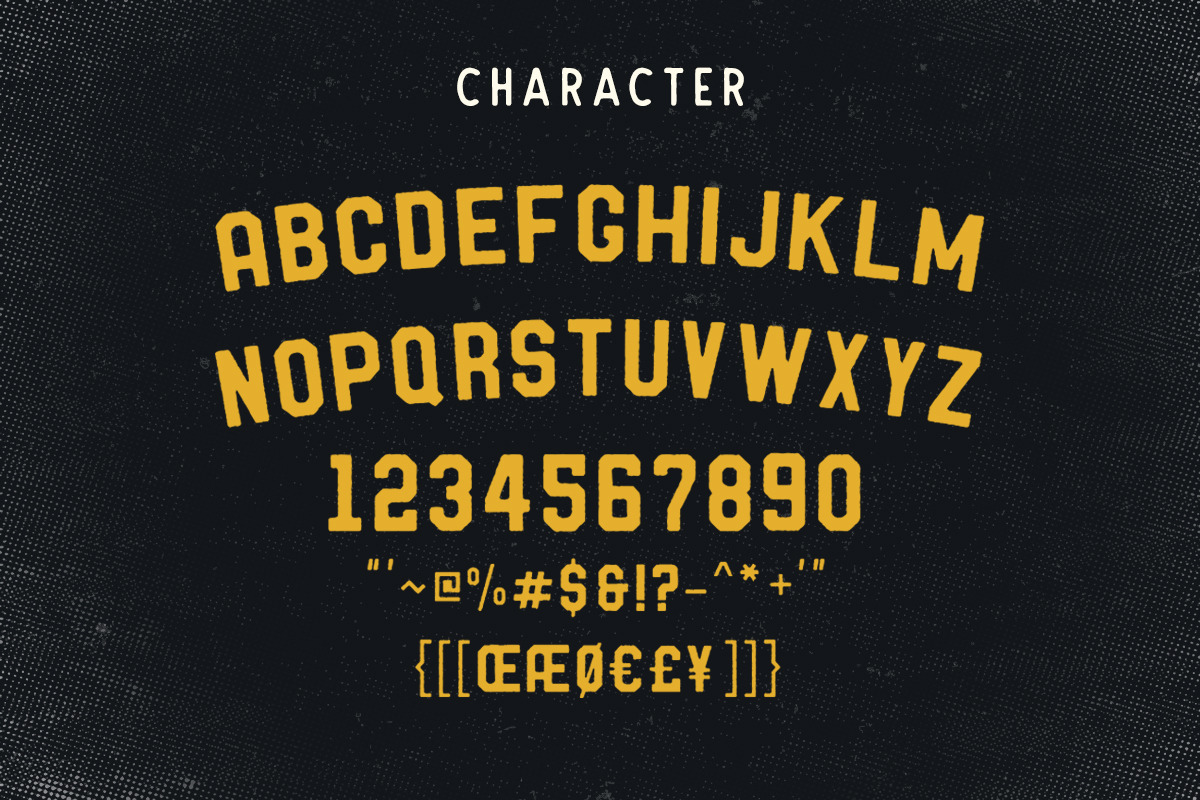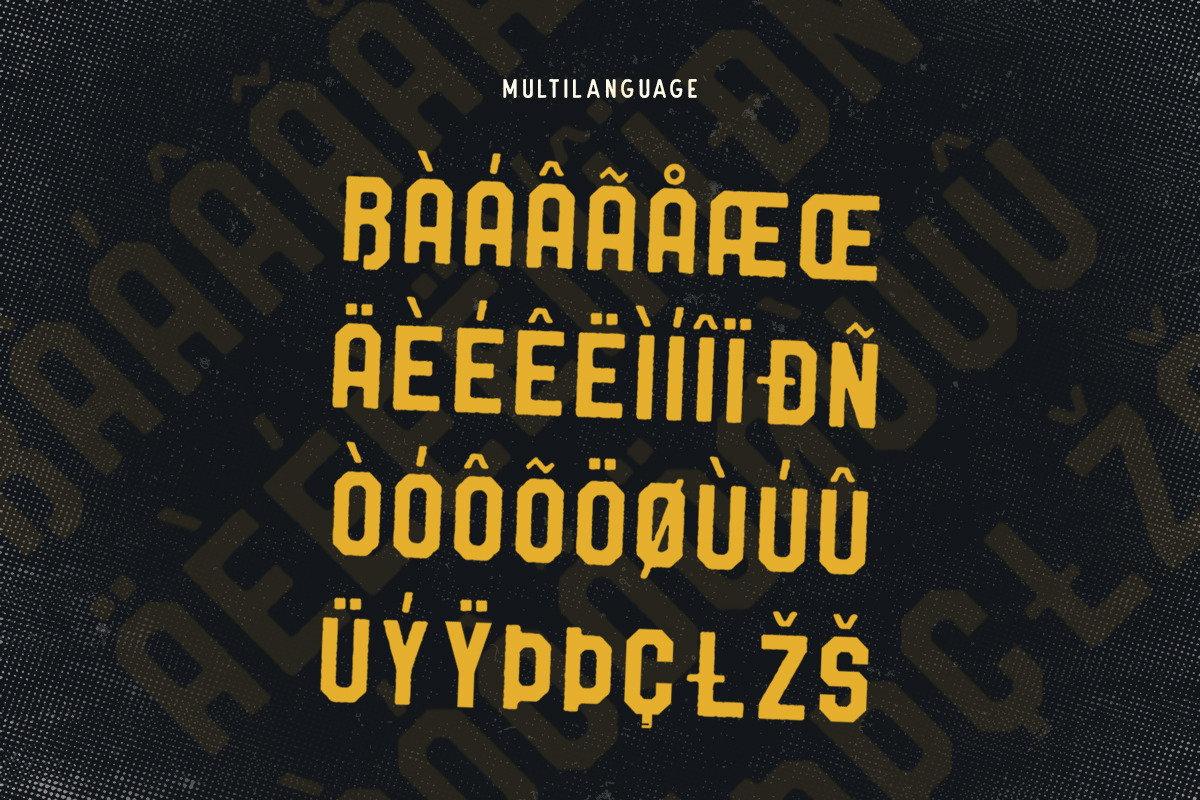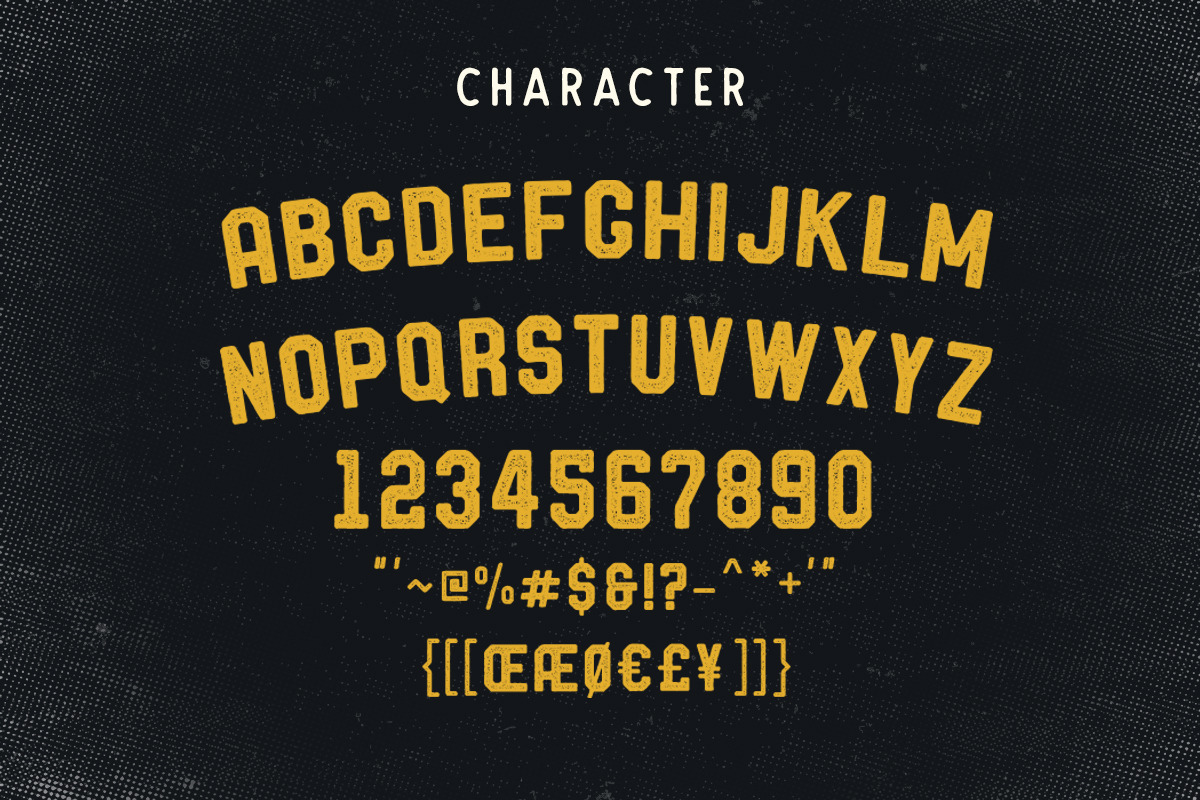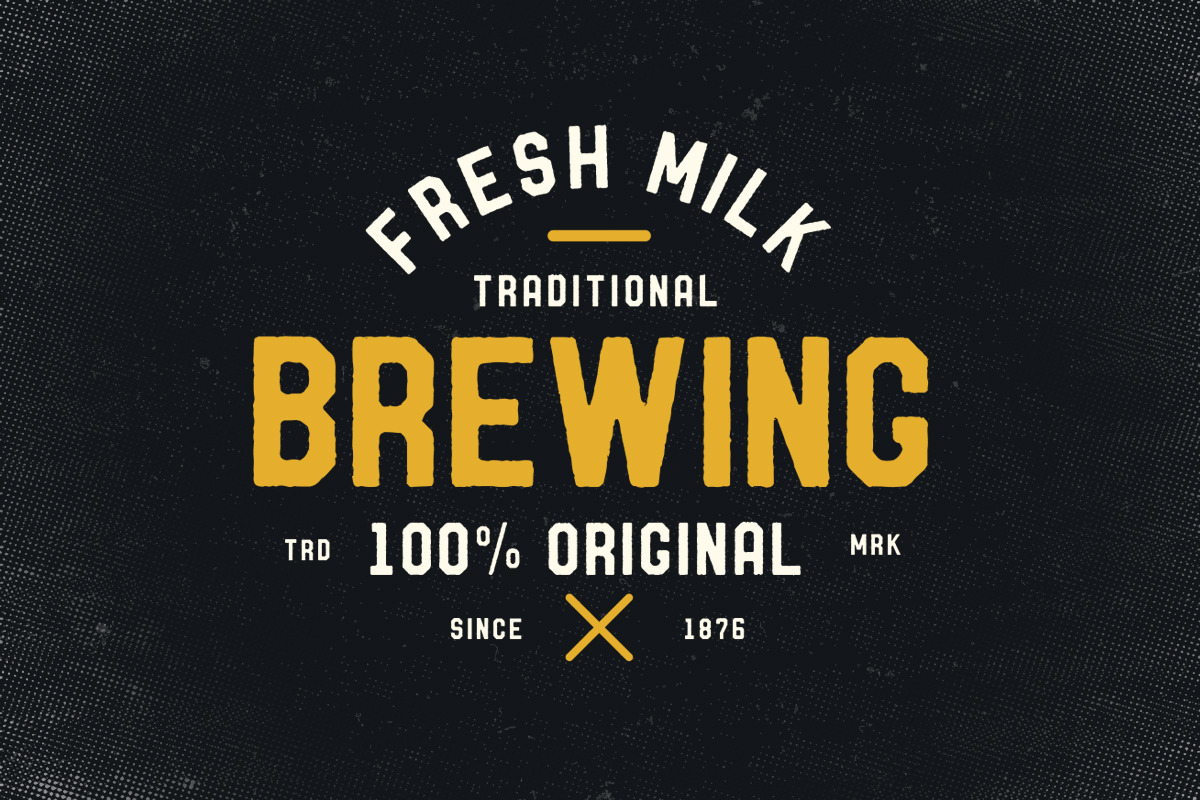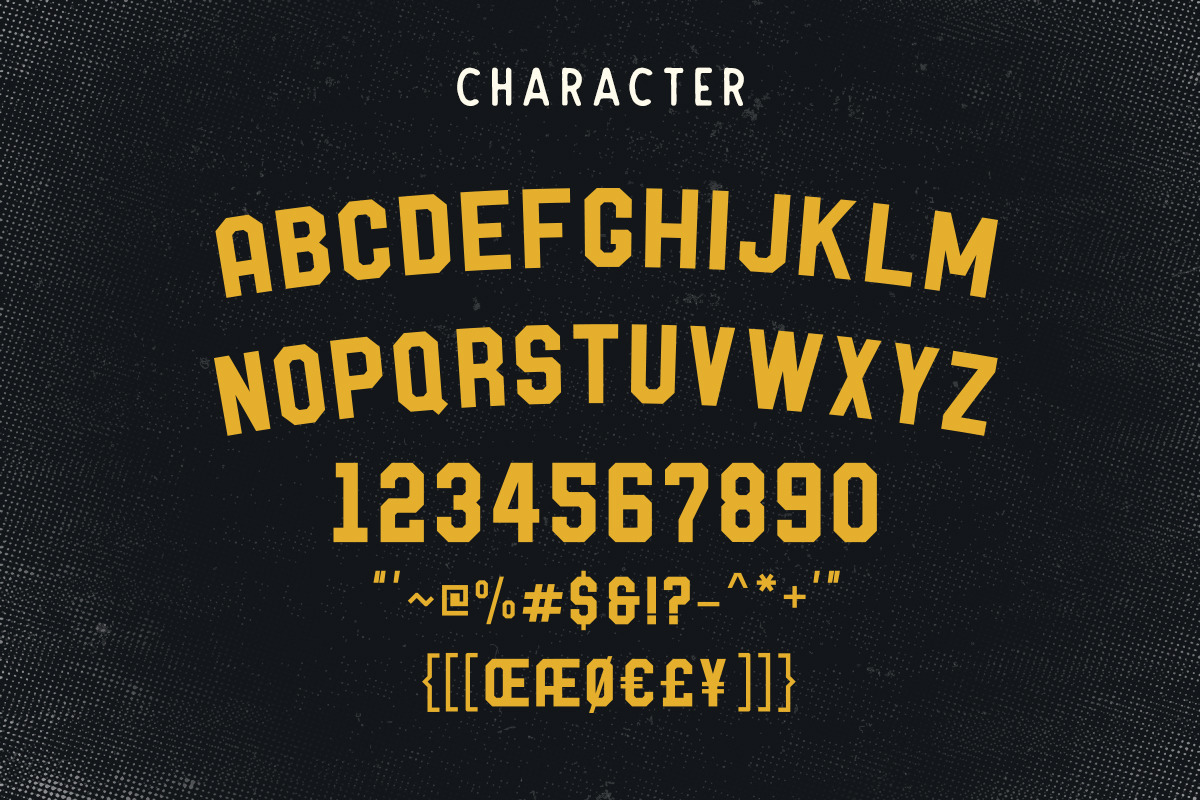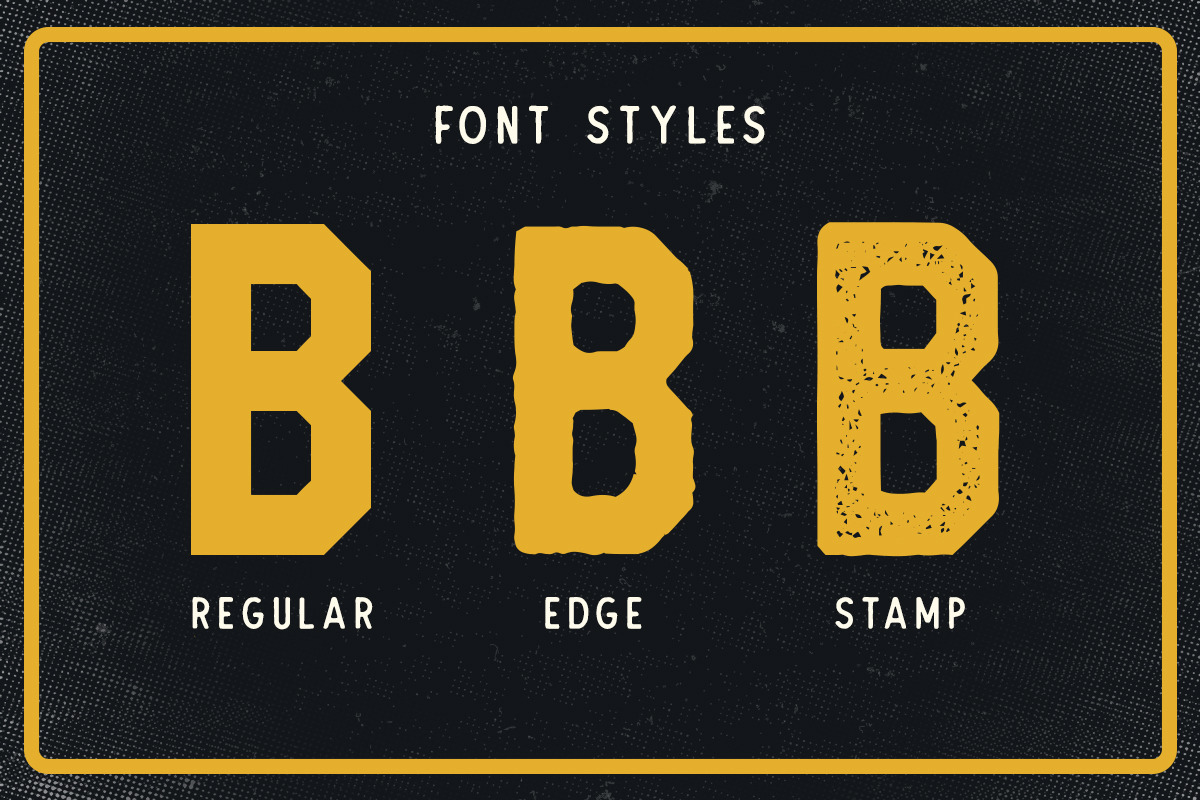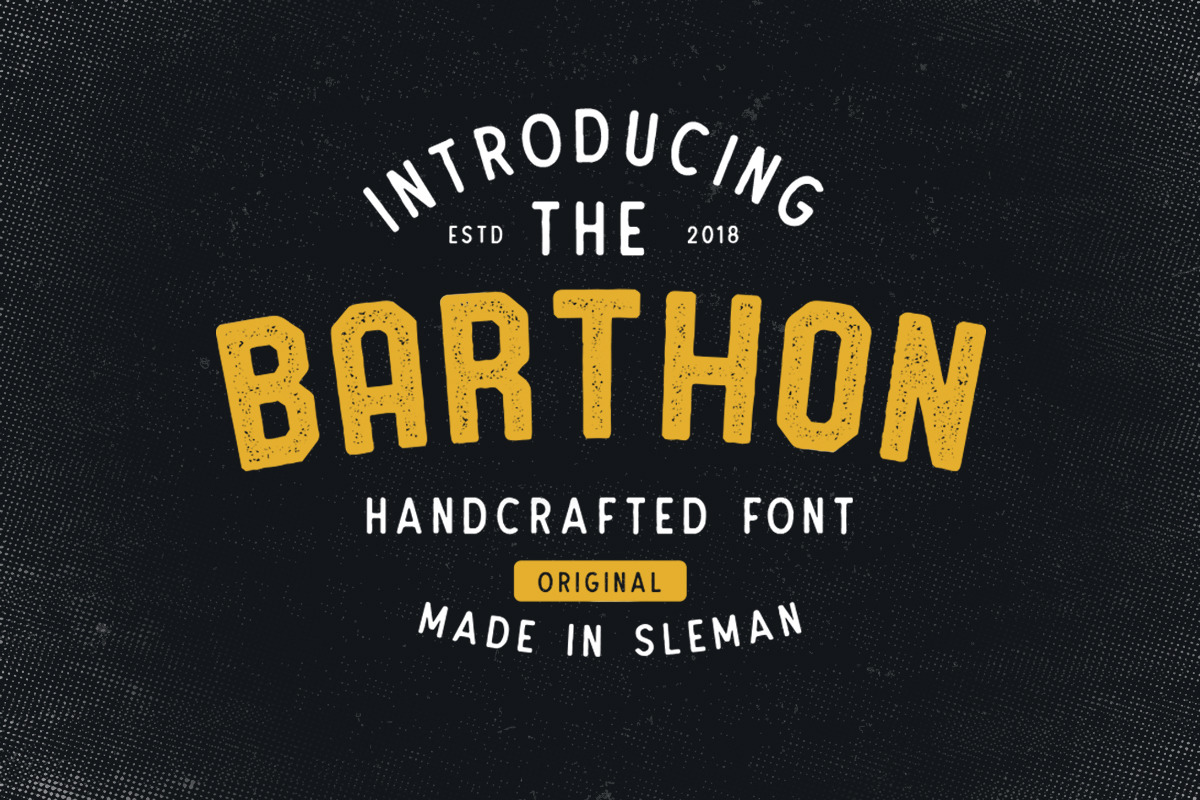
Barthon Typeface Combo (7Fonts)!
Barthon is a family of 3 sans serif font designed with carefully handcrafted. Also suitable for branding, T-shirt, Wedding Invitation, Vintage Design, Logotype, and any project. With three style make you easier to design everythings, and a sans bonus to make better design.
Multilingual Support support many different languages 20+ . included AÀÁÂÃÄÅCÇDÐEÈÉÊËIÌÍÎÏNÑOØÒÓÔÕÖUÙÜÚÛWYÝŸỲŸÆŒßÞþ
- Multilingual Support support many different languages 20+ .
- Barthon Regular
- Barthon Italic Regular
- Barthon Edge Regular
- Barthon Edge Italic Regular
- Barthon Stamp Regular
- Barthon Stamp Italic Regular